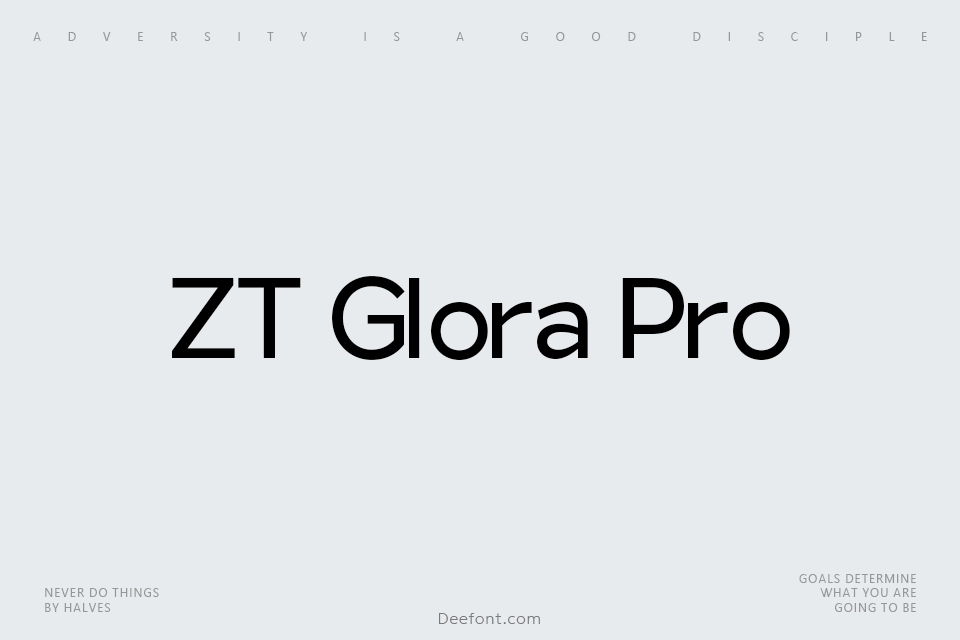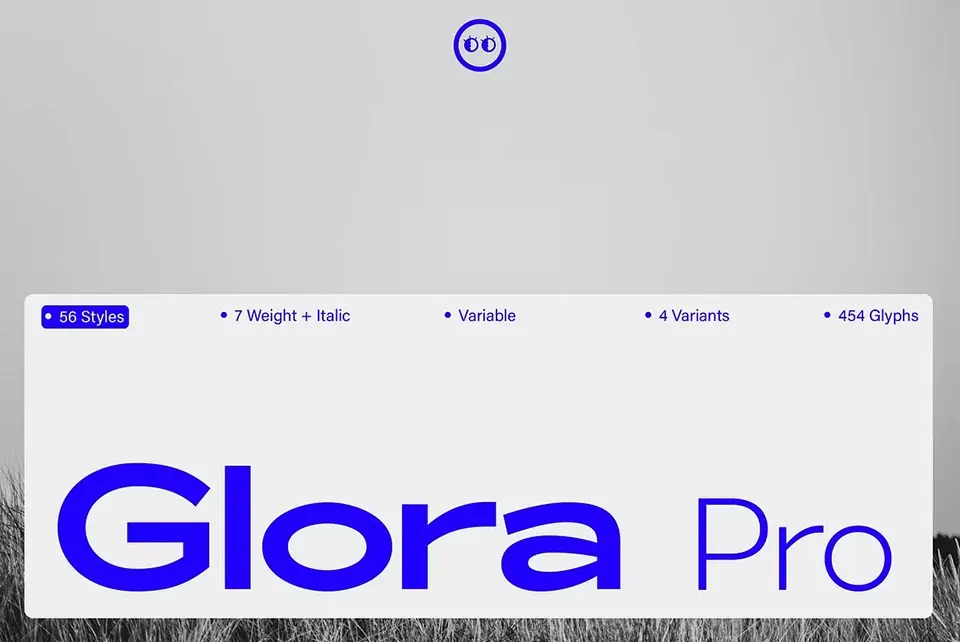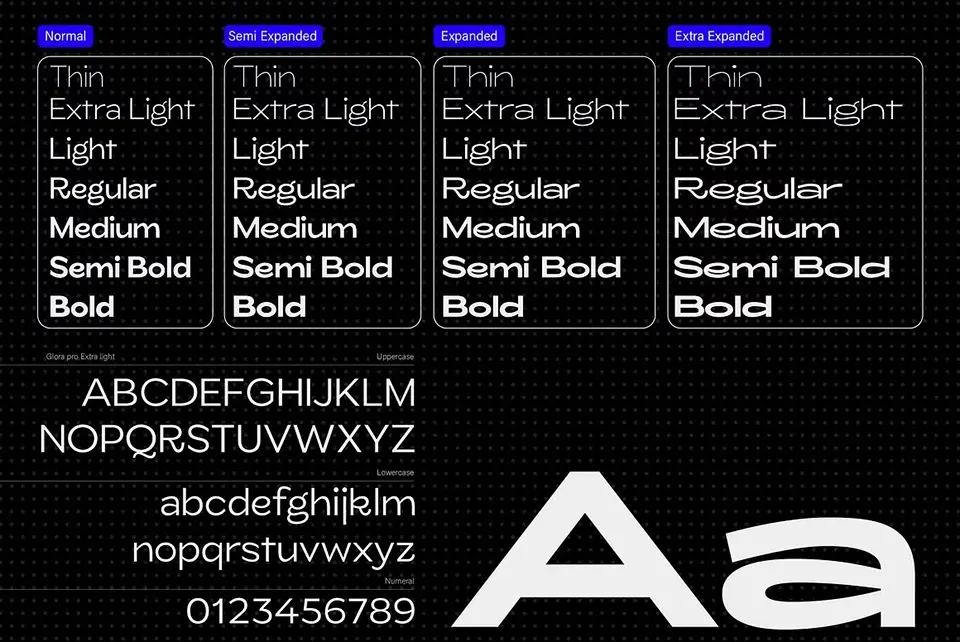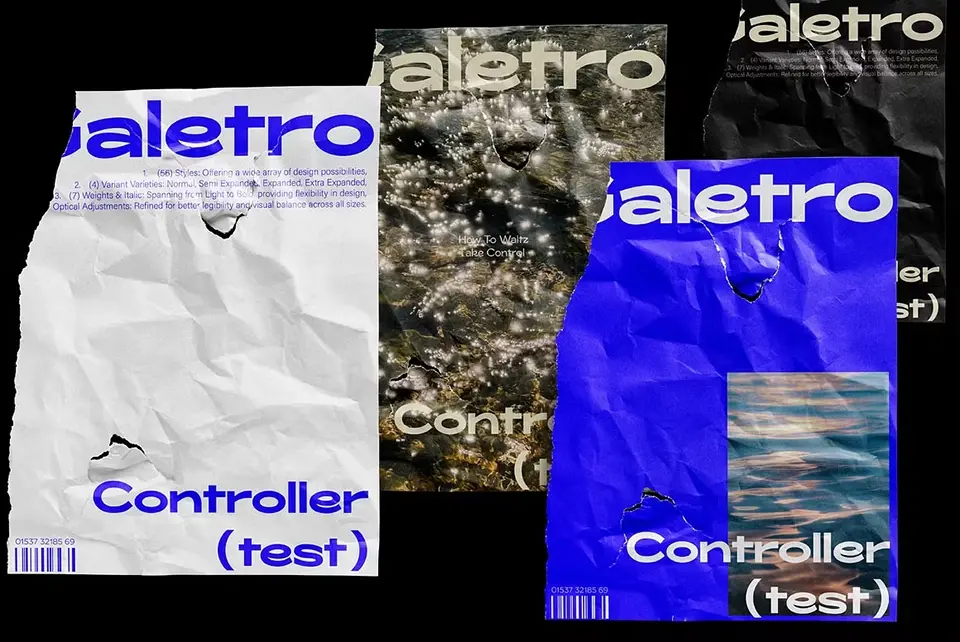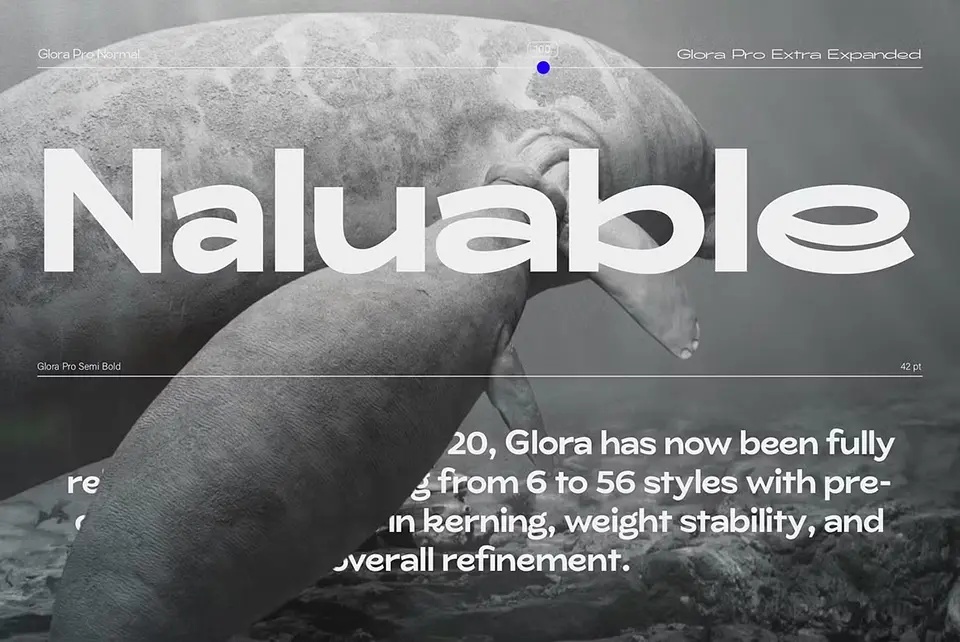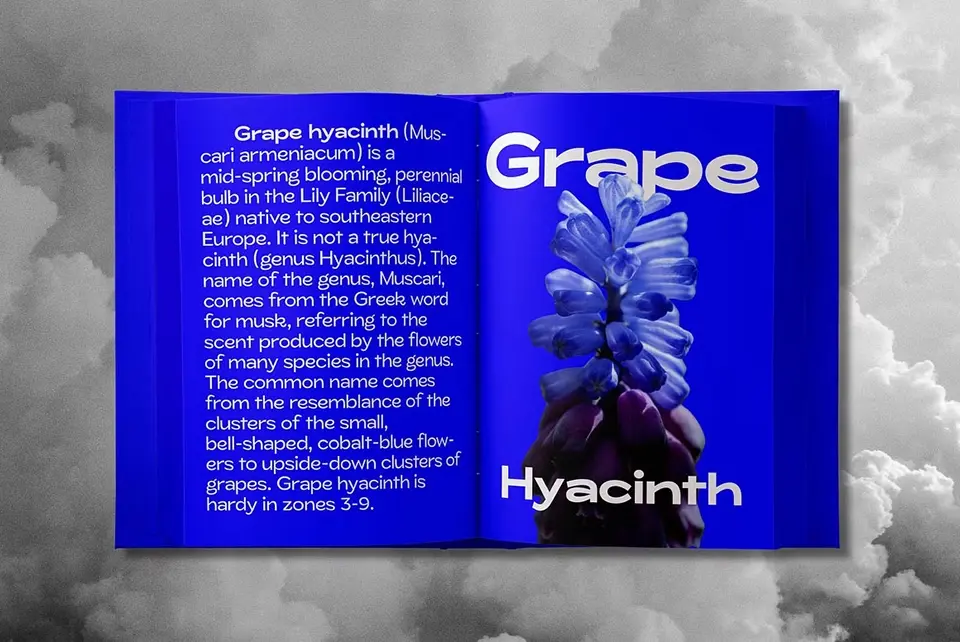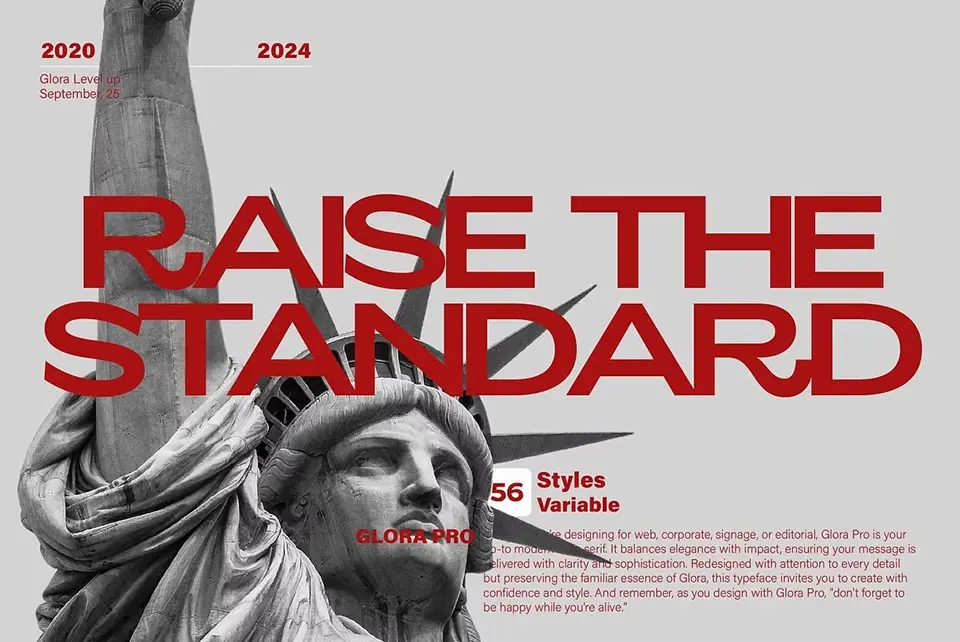
ZT Glora Pro Font Family
ZT Glora Pro Font Family is a sophisticated modern sans serif typeface offering 56 styles across 4 variant categories with 7 weights and italic options. Originally released in 2020 and completely reimagined, this typeface features enhanced kerning, optical adjustments for superior legibility, and multi-language support, making it perfect for web design, branding, editorial projects, and corporate applications. Its smooth curves and refined letterforms deliver elegance with versatility for any professional design endeavor.****Get 6 Styles Free****As a thank-you for being part of our community, we’re offering 6 styles ofZT Glora Pro absolutely free! You can download theExtra Light, Extra Light ltalic, Light, Light ltalic, Reqular, and ltalic styles to get started on your projects right away.